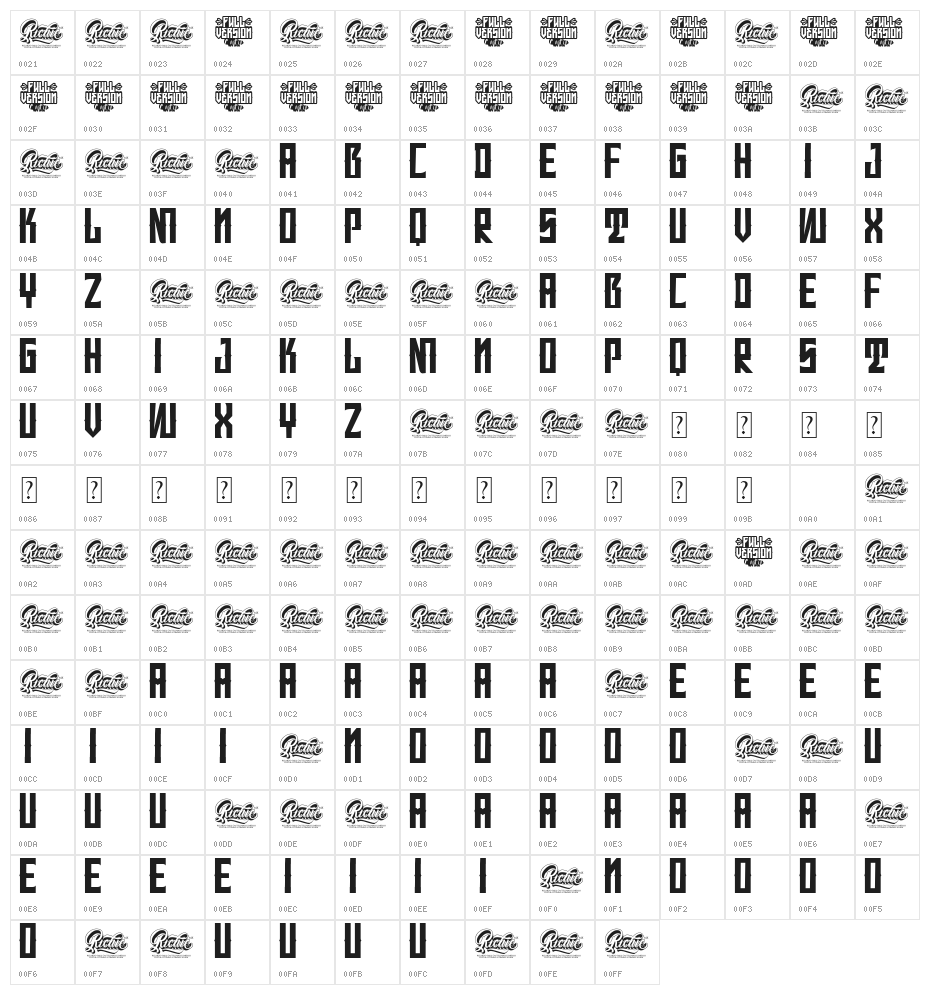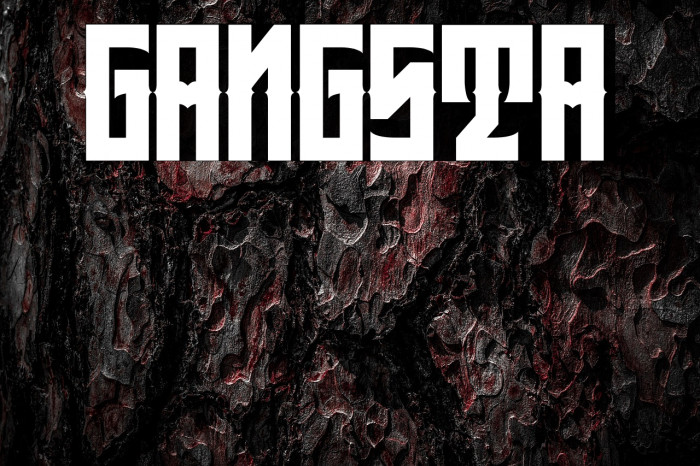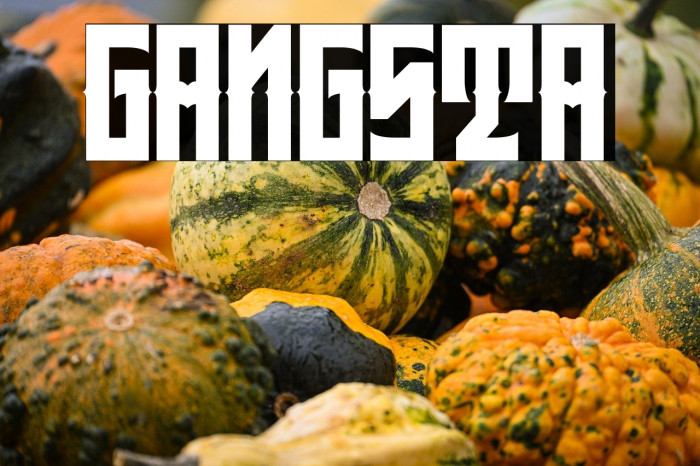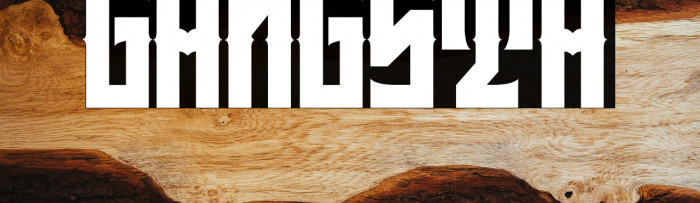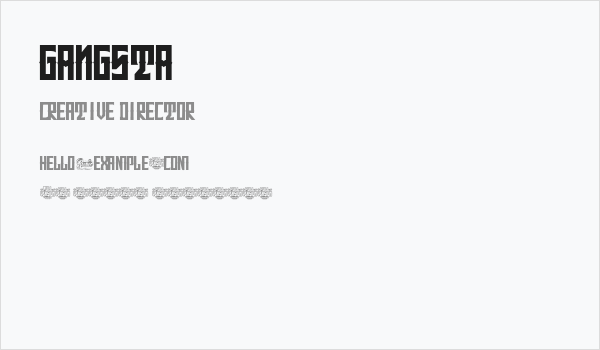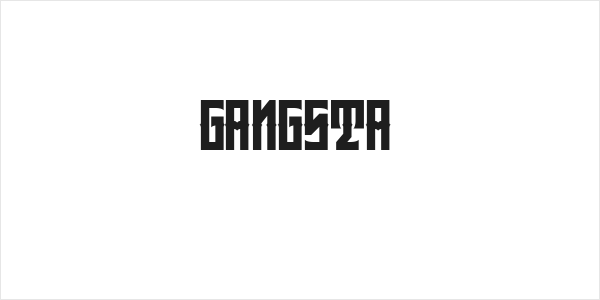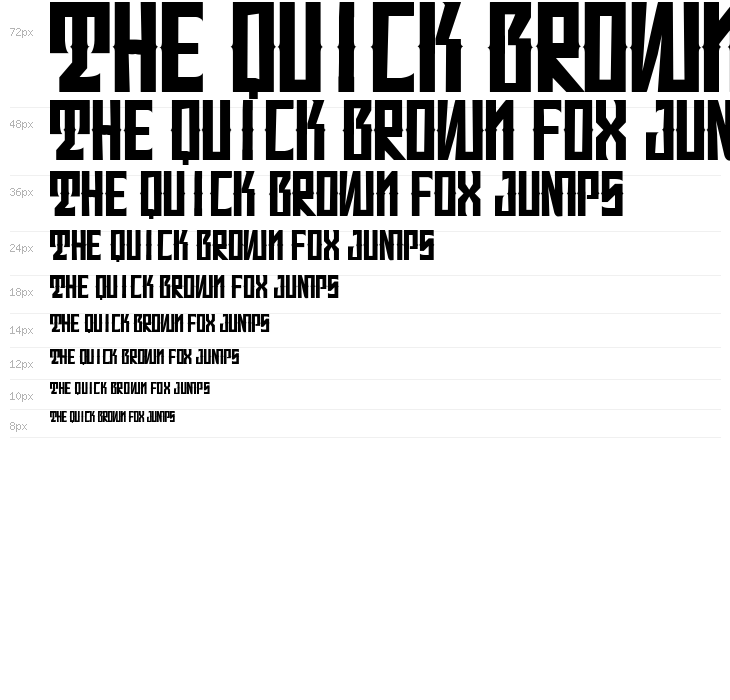
Gangsta Font
Gangsta Description
This font features a bold, angular design with a strong presence. The characters are constructed with sharp edges and a geometric style, giving it a modern and edgy appearance. The uppercase letters are particularly striking, with a uniform height and width that create a cohesive look. The font's design is reminiscent of urban and street art styles, making it ideal for projects that require a bold statement. The characters are tightly spaced, enhancing the compact and impactful nature of the font. Its unique style is suitable for creative and unconventional uses.